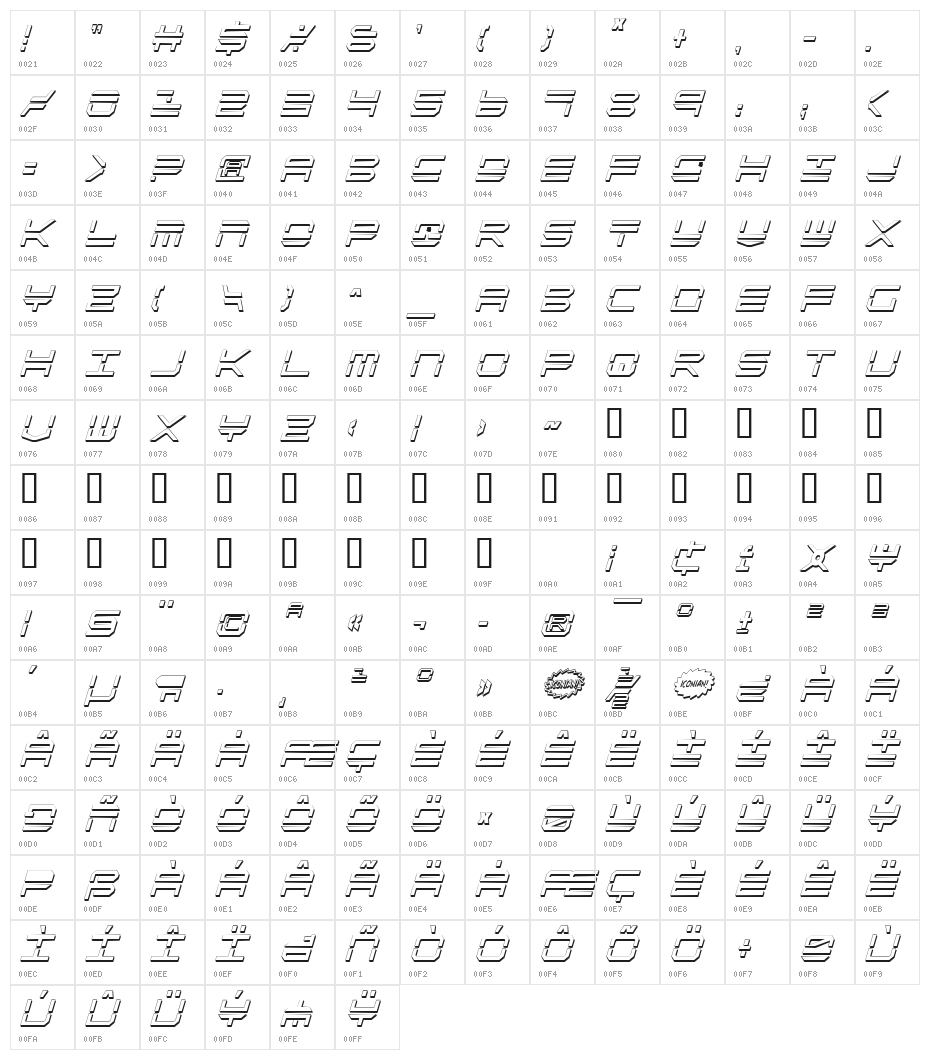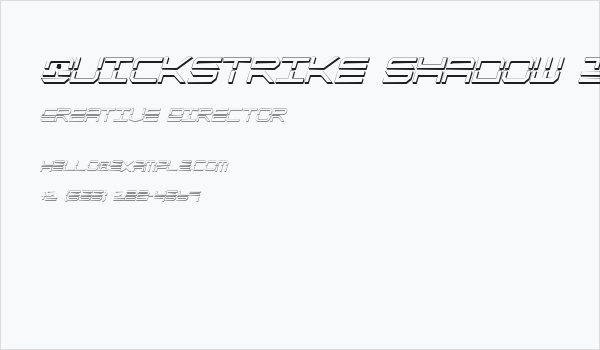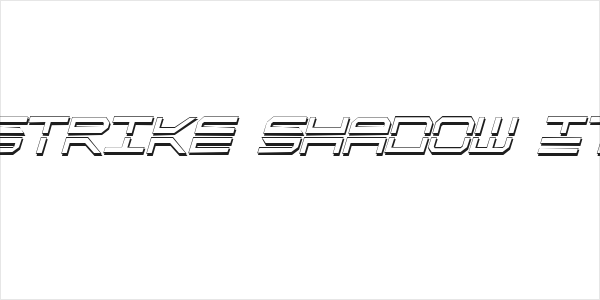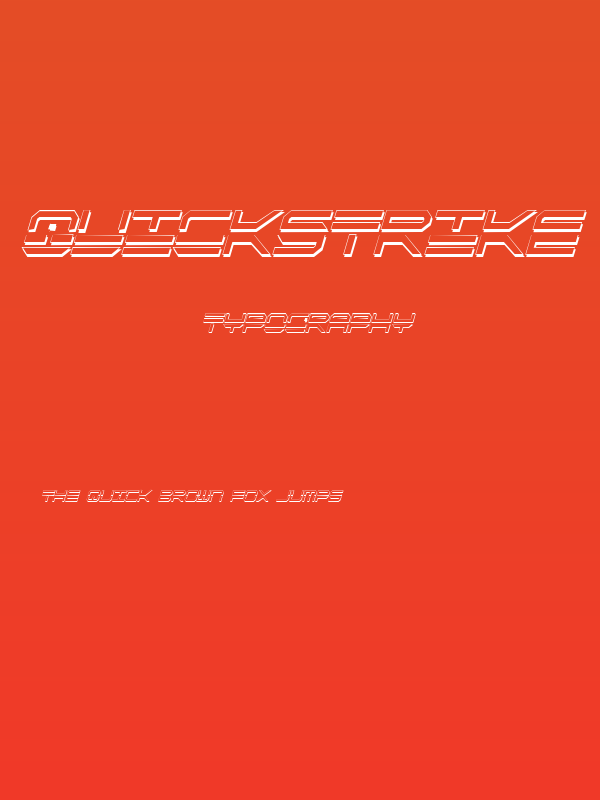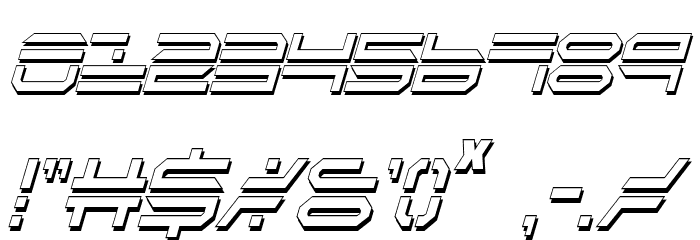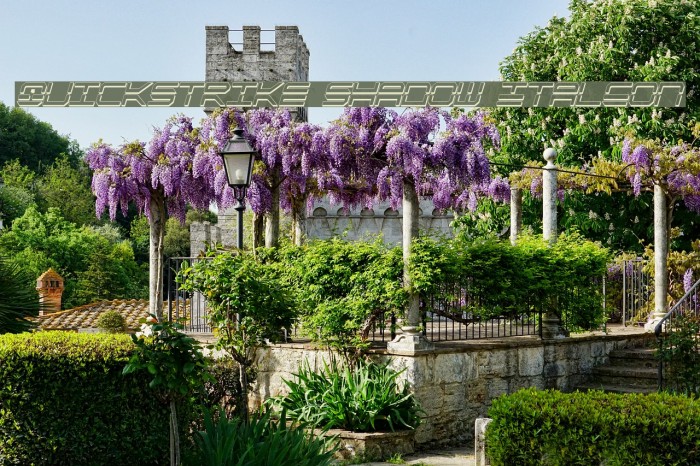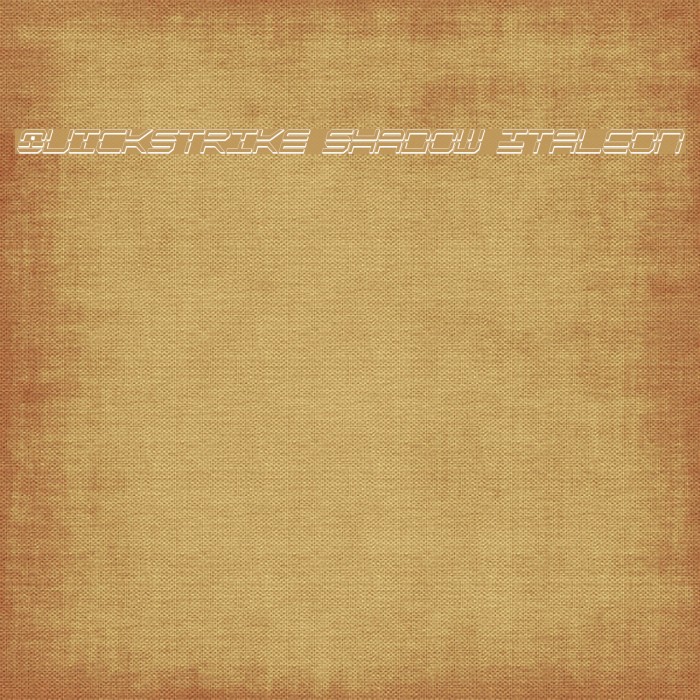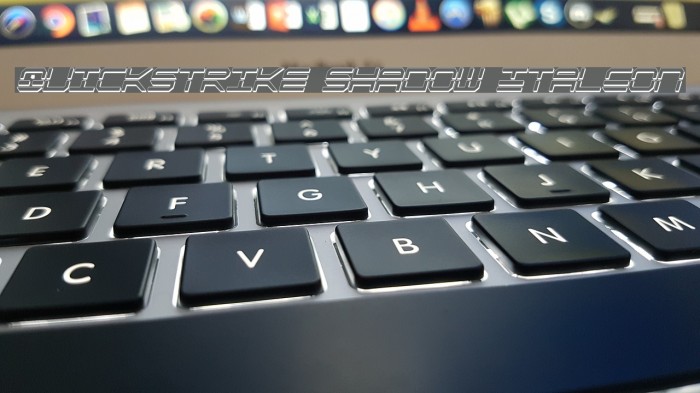
QuickStrike Shadow ItalCon Font
QuickStrike Shadow ItalCon Description
This font features a bold, futuristic design with a distinct shadow effect that gives it a three-dimensional appearance. The characters are italicized, adding a dynamic and forward-moving feel. The geometric structure is consistent throughout, with sharp angles and clean lines. The uppercase and lowercase letters maintain a uniform style, while the numerals and special characters complement the overall aesthetic. The font's unique style makes it suitable for projects that require a modern and edgy look.
| Proposed Projects | Ideal for sci-fi themed posters, video game graphics, tech branding, and dynamic headlines. |